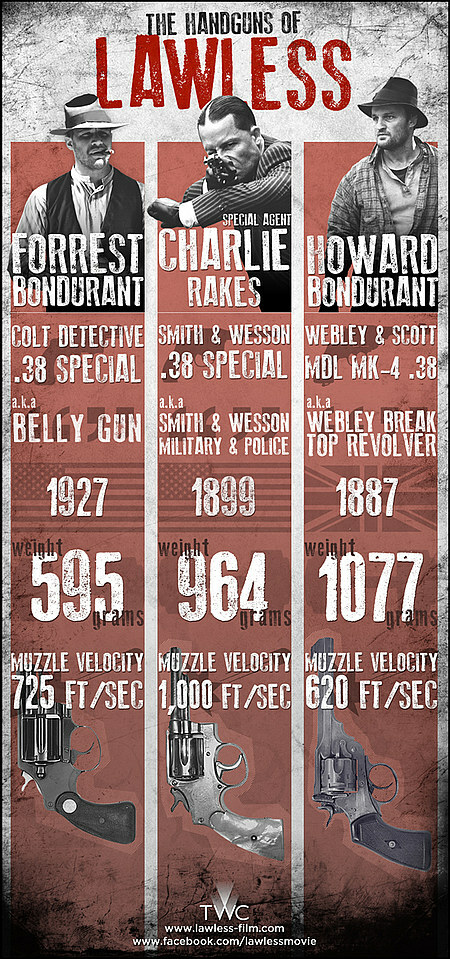
Old Press Italic
Old Press Italic is a free eroded old-school display font with tightly compressed, forward-leaning letters. Its tall silhouettes and blunt, irregular edges recall ink-heavy type pulled from a worn printing plate. The distressed patches are dense and uneven.
A concert poster is its most convincing setting, especially for punk, garage rock, or rough-edged festival graphics. The same battered print character suits beverage labels and streetwear merchandise, where the lettering can become part of the surface texture rather than a clean typographic layer. In editorial design, it can give music features or culture-section openers the direct impact of a clipped newspaper headline.
The film Lawless uses the Old Press font in its print and digital media. This is a movie poster featuring the “Lowless Old Press” font in Italy.